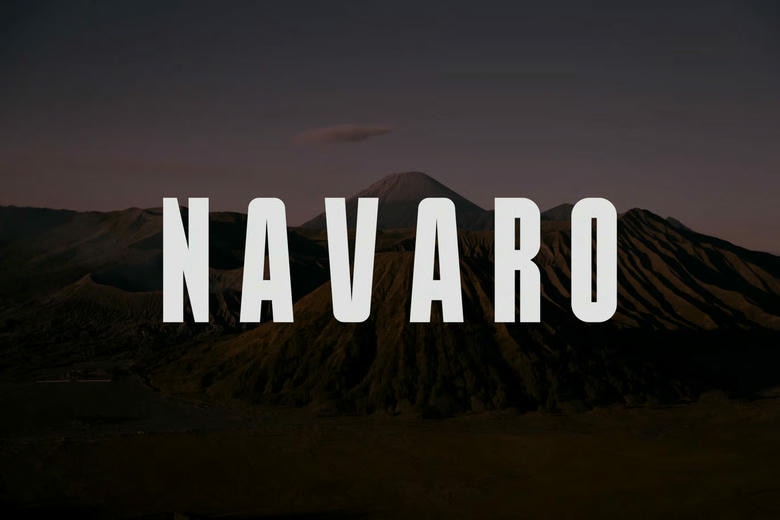
Navaro Font
Navaro is a modern sans-serif logo font with a bold and authentic look. It works well for branding projects such as logos, esports, and more. This font stands out in many different settings.